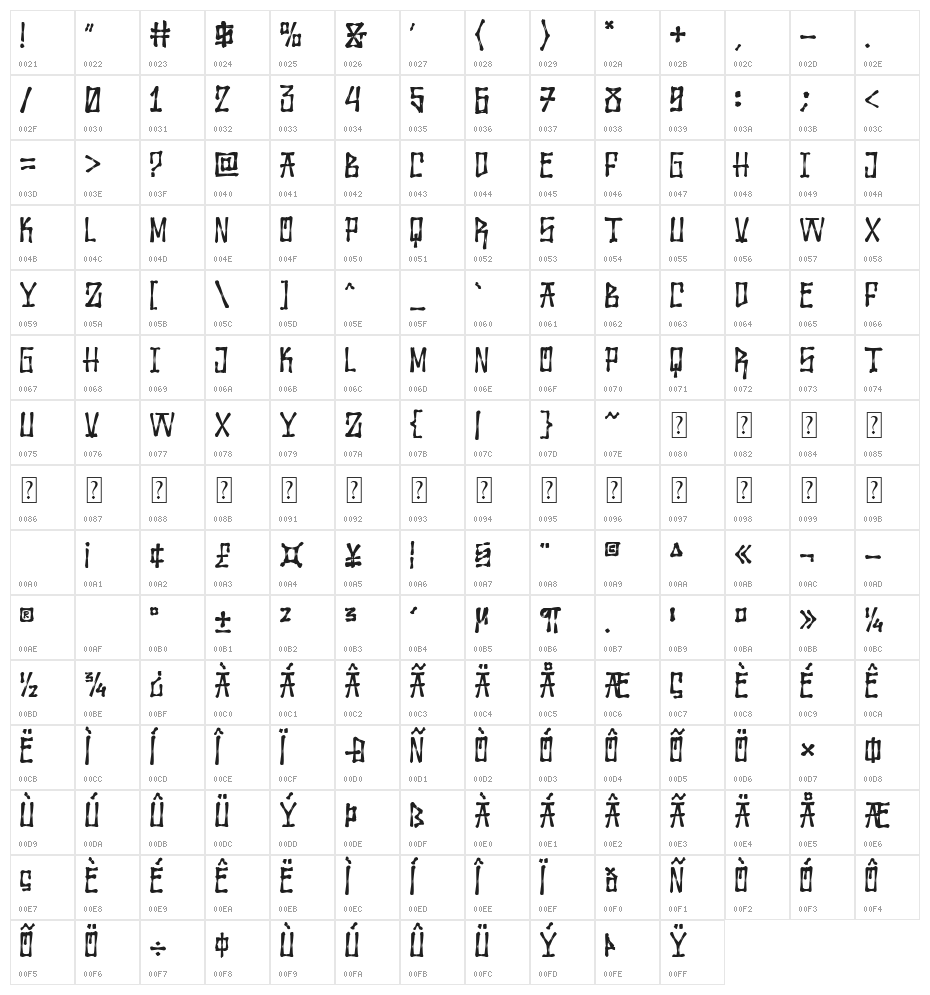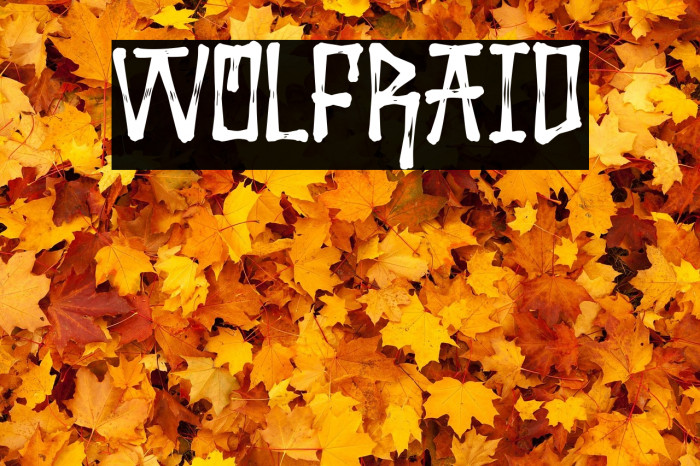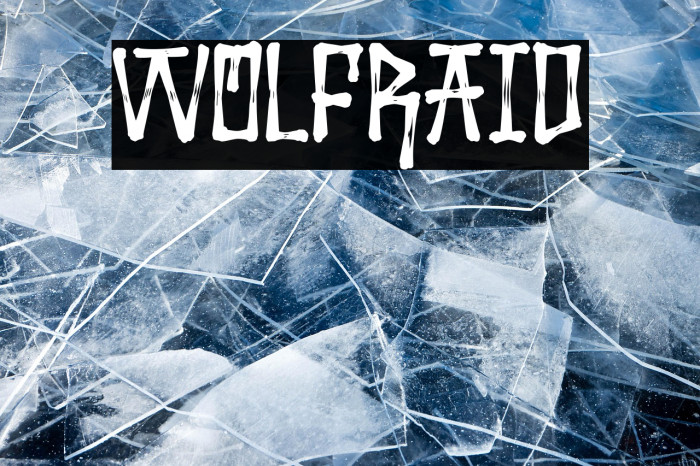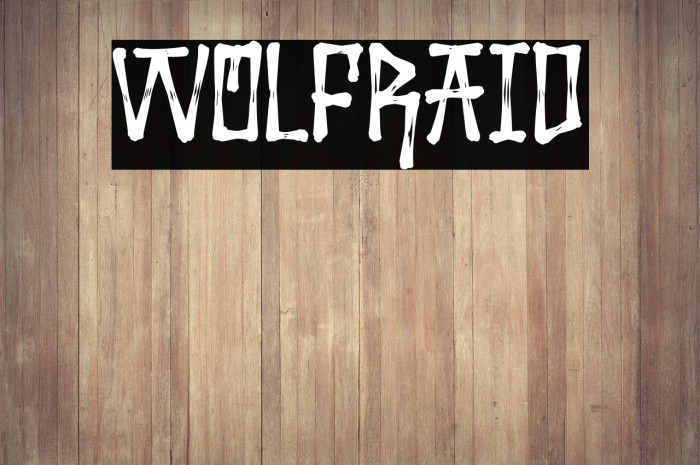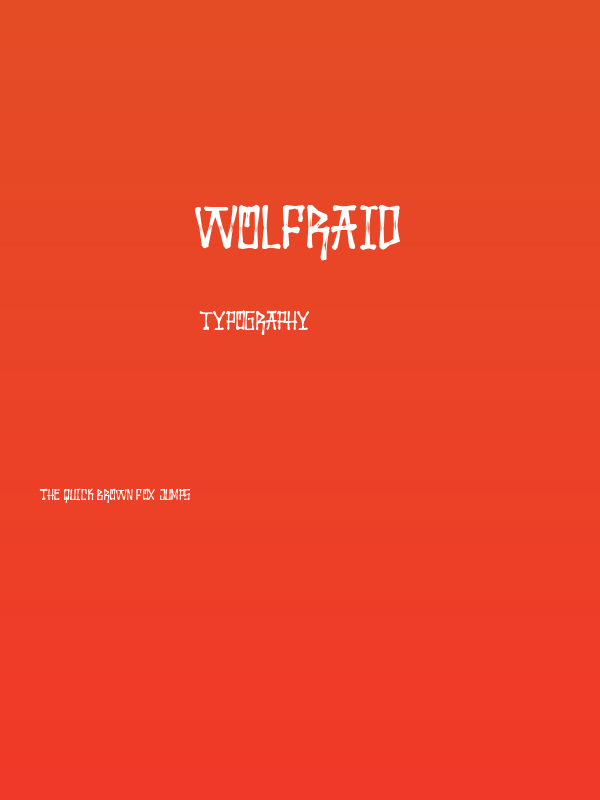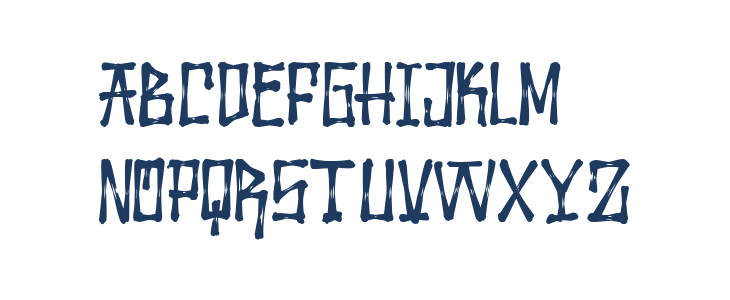
Wolfraid Font
Wolfraid Description
This font exhibits a rugged and edgy style, characterized by its bold, hand-drawn appearance. The letters are irregular and slightly distorted, giving them a raw, energetic feel. The strokes are thick and uneven, with a brush-like texture that adds to the font's dynamic and rebellious nature. The uppercase and lowercase letters maintain a consistent style, while the numbers and special characters complement the overall aesthetic. This font is perfect for projects that require a bold statement or a touch of grunge.
| Use Case | Logos, Posters, Headlines |
| Proposed Projects | Ideal for music album covers, posters, streetwear branding, and any project needing a bold, rebellious touch. |